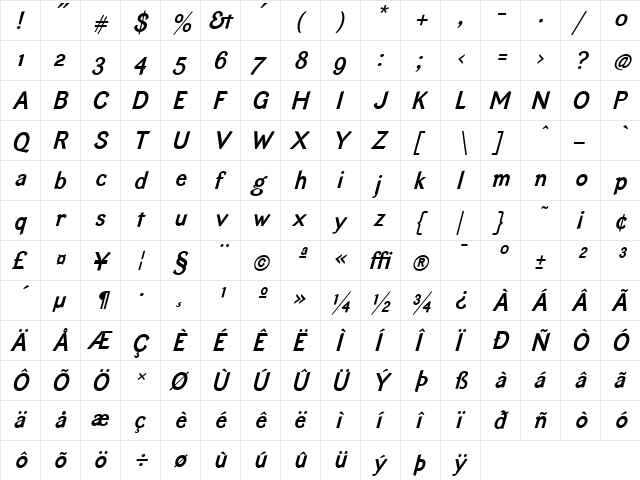
EquipoizeSans Bold Italic
Design Context for EquipoizeSans Typeface
EquipoizeSans offers clean, dependable letterforms without strong stylistic allegiance, making it a practical choice for designers who need flexibility. The slanted form adds forward momentum and visual energy. Its bold stroke weight gives it real presence on the page.
Pro Tip: Try EquipoizeSans for annotation and caption copy alongside an upright companion — the contrast in angle creates a dynamic but ordered typographic system.